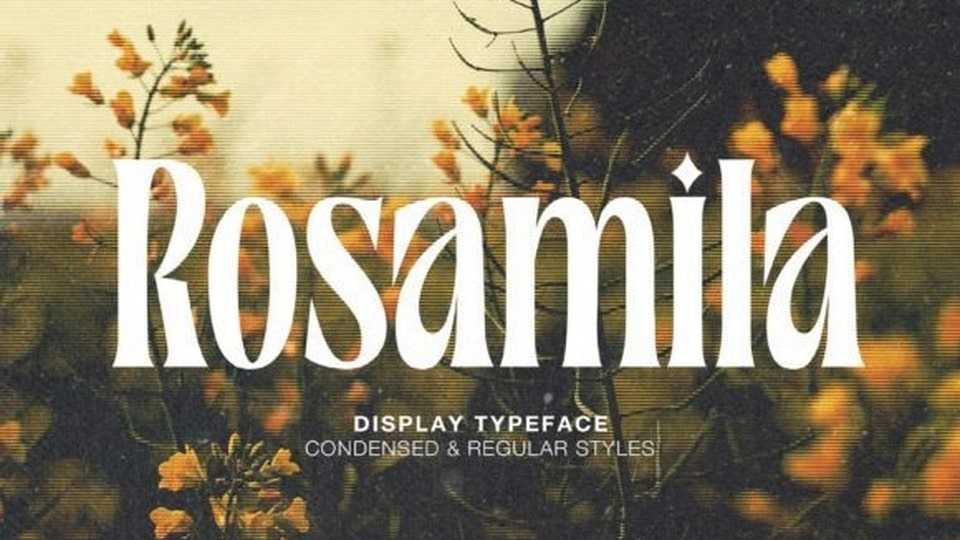
Download Rosamila font, a stylish serif typeface with beautiful ligatures. Use it to create gorgeous wedding invitations, beautiful stationary art, eye-catching social media posts, and much more!